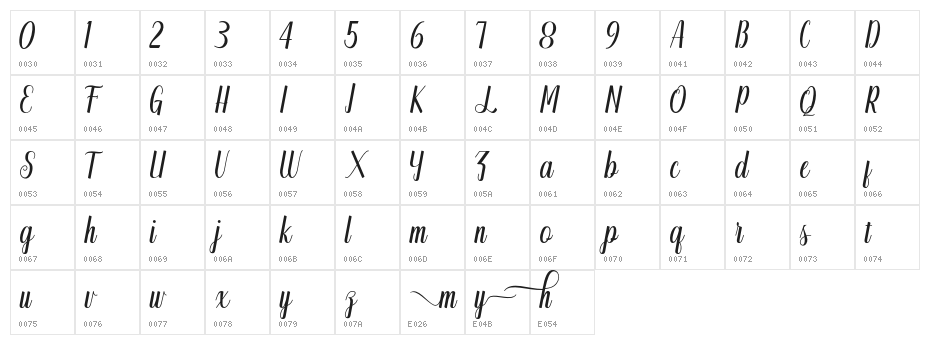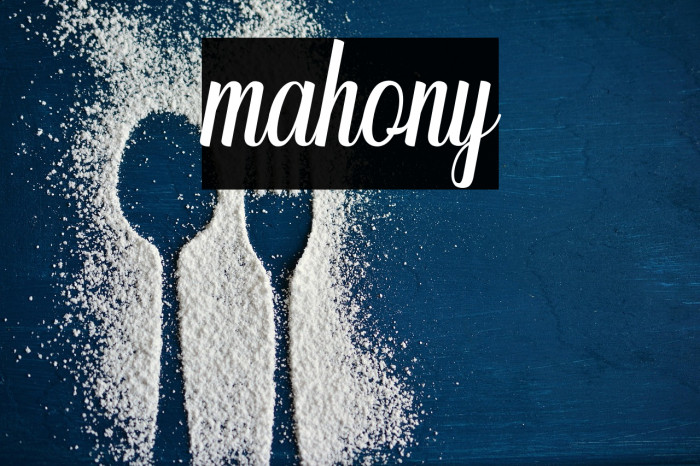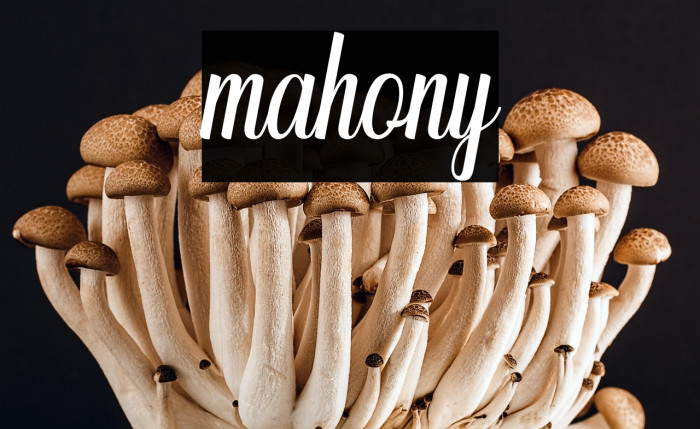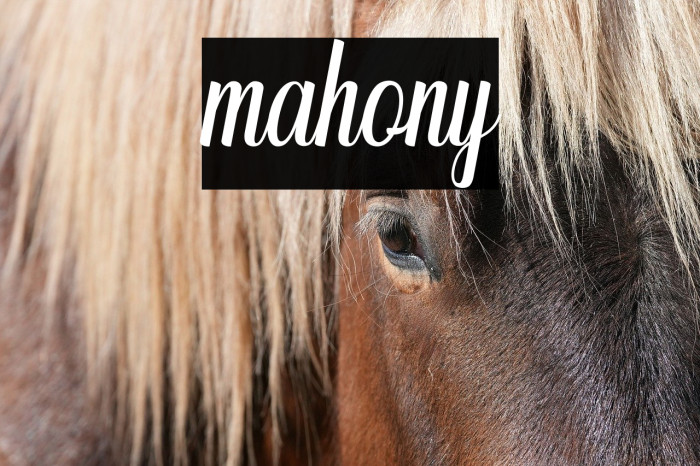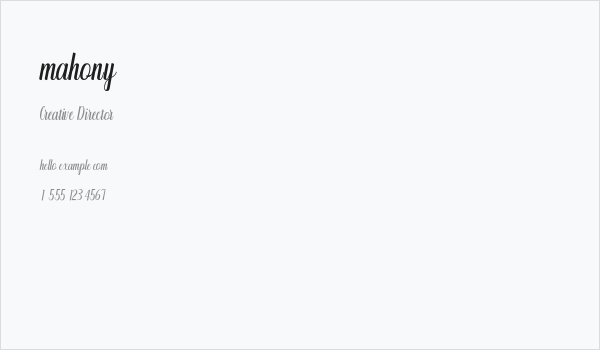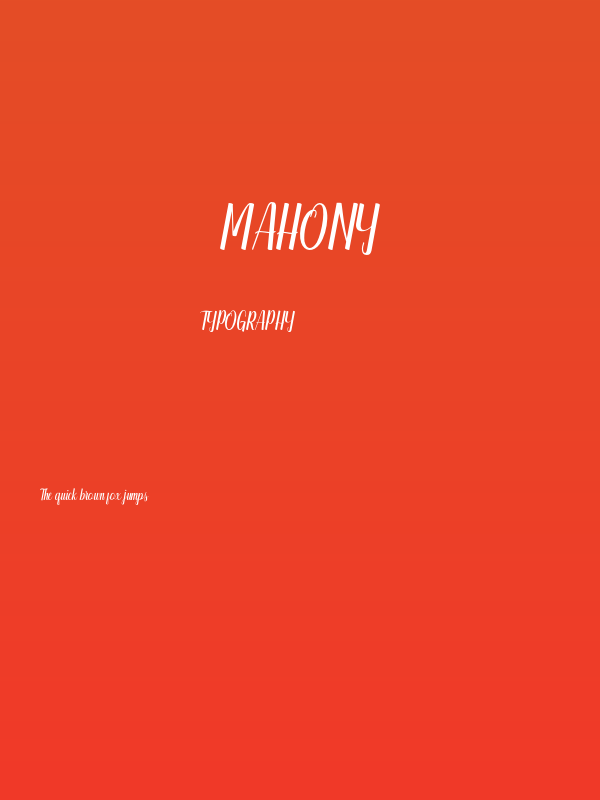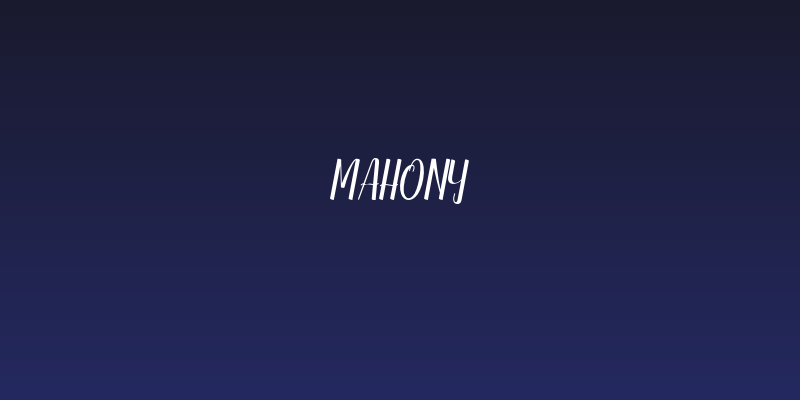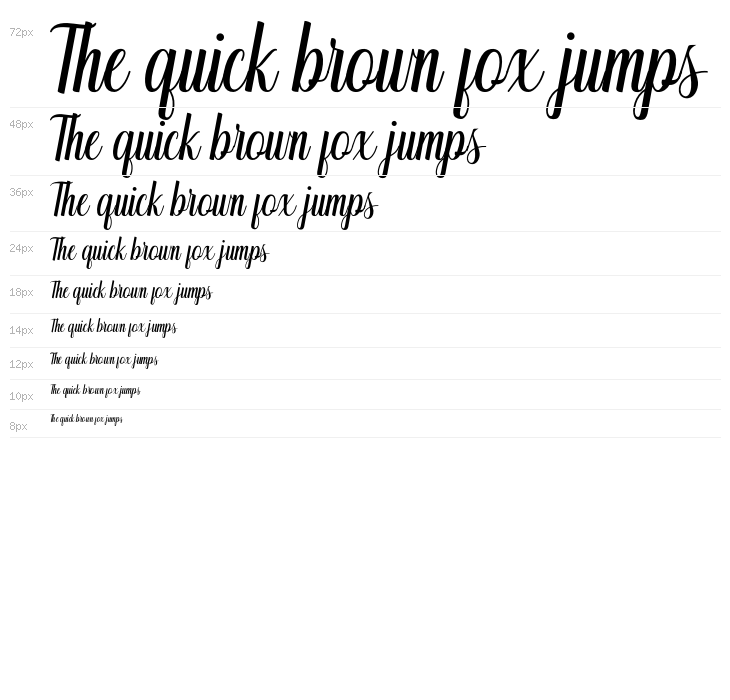
mahony Font
mahony Description
This font features a dynamic and elegant script style, characterized by its flowing, cursive letterforms that exude a sense of sophistication and flair. The uppercase letters are tall and slender, with graceful curves and subtle flourishes that add a touch of drama. The lowercase letters maintain a consistent style, with smooth connections and a slightly more compact form, enhancing readability while preserving the font's artistic appeal. The numerals are distinct and harmonize well with the overall design, maintaining the same elegant curvature. This font is versatile, suitable for projects that require a touch of elegance and creativity.
| Overall Style | Elegant, Artistic |
| Use Case | Headlines, Invitations, Branding |
| Proposed Projects | Ideal for wedding invitations, elegant branding, fashion magazines, and artistic posters. |